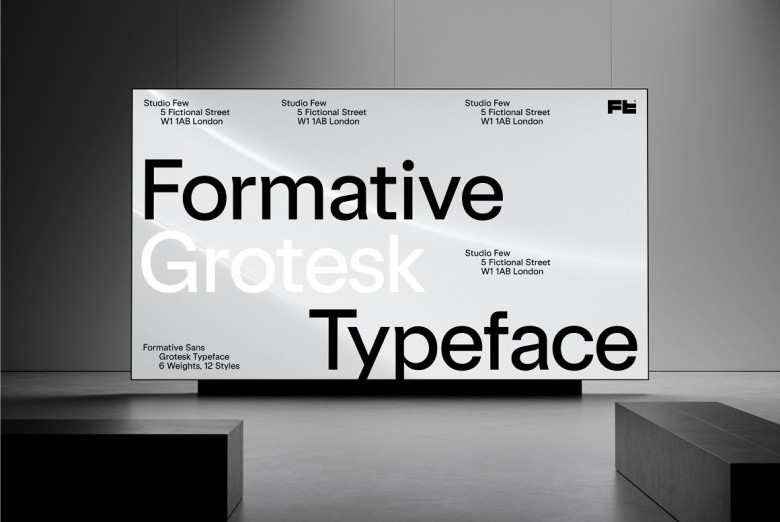
Formative Font
Formative is an elegant geometric Grotesk sans serif font family exploring proportion and simplicity in typefaces, inspired by the elegant simplicity found in many lesser-known 20th century sans. Asymmetric terminals, bowls with squared edges, straight paths with curves.
Formative Grotesk offers appeal. The set includes stylistic design featuring typical text terminals.
Formative Sans Serif Font Family